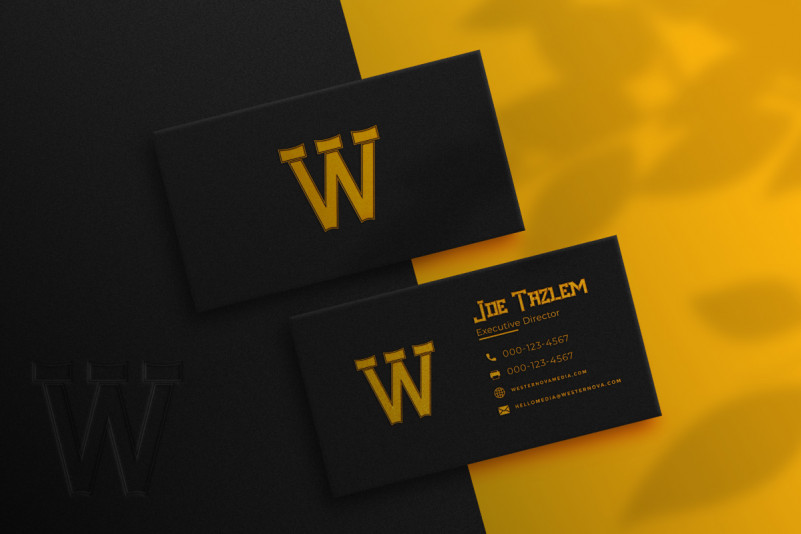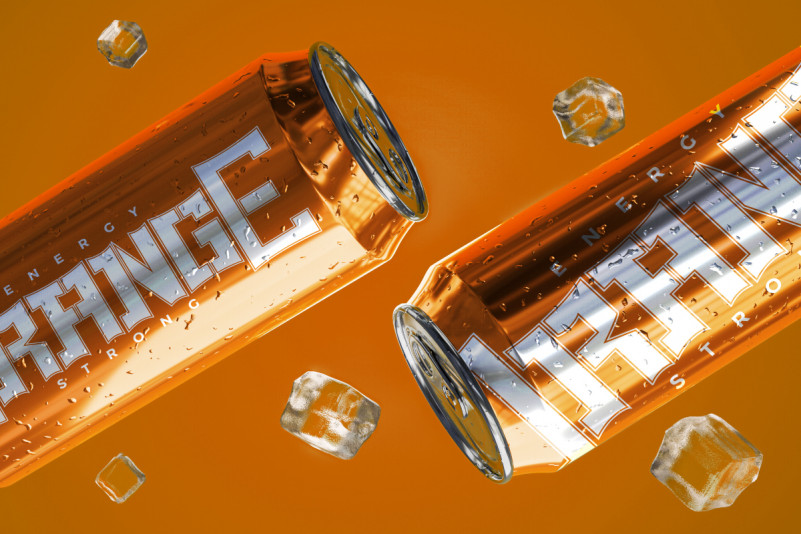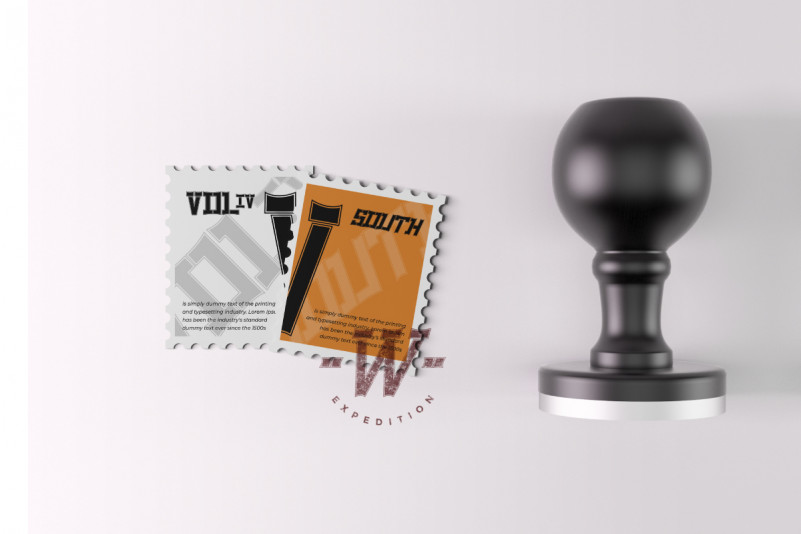
Westrener Font
Westrener Display Font
This is an old American Sherriff inspired display font family with unique style. It has beautiful, fresh, elegant, natural and stylish glyphs. Westrener Luxury Font will be perfect for branding, logo, photography and headlines etc. It is so elegant, classy, strong and unique.